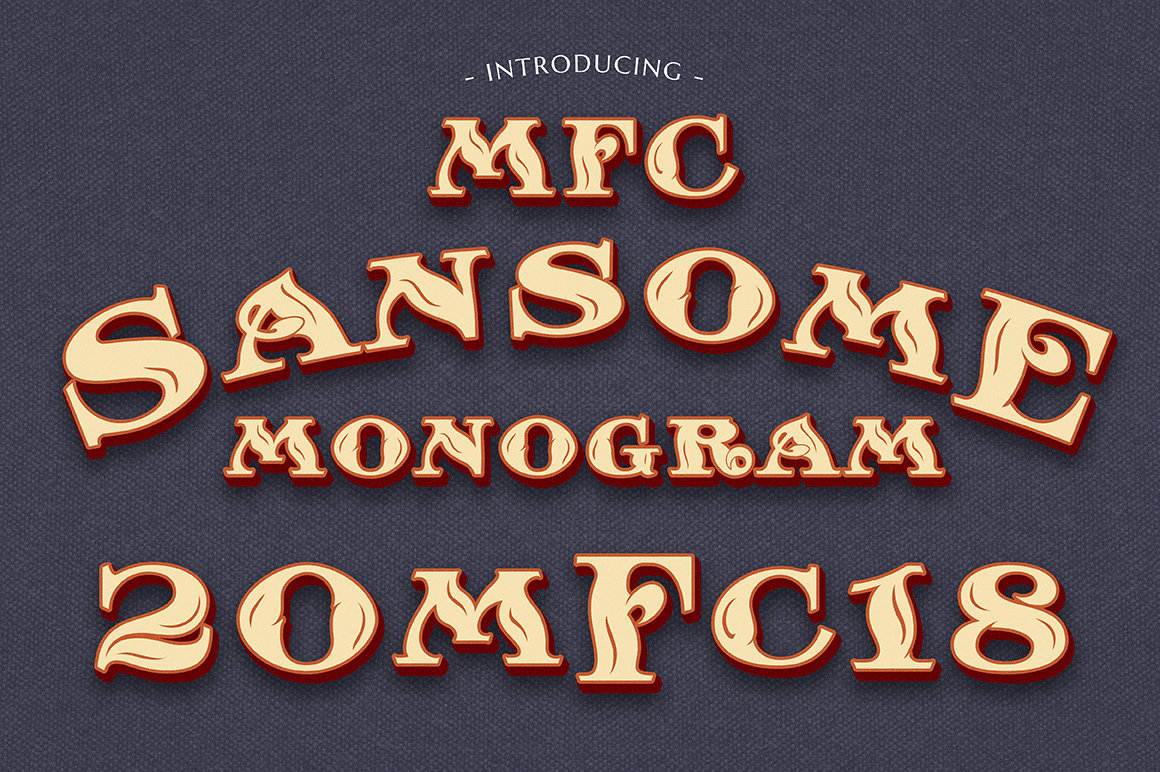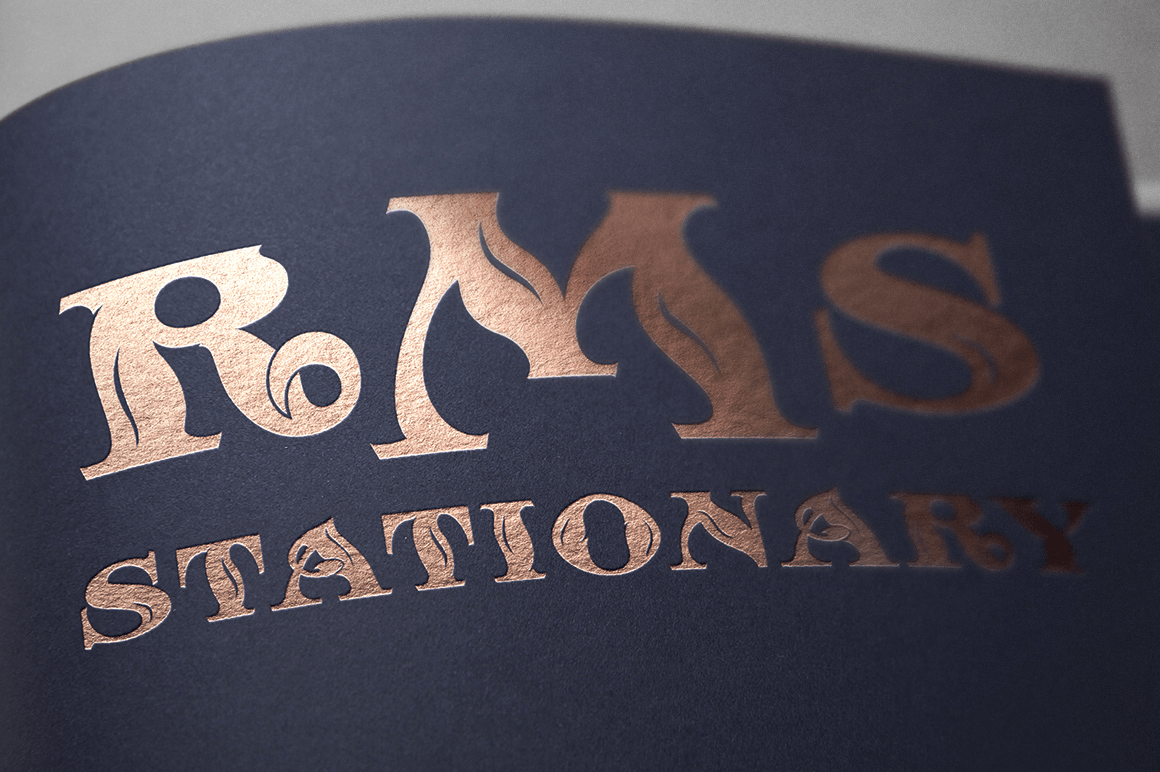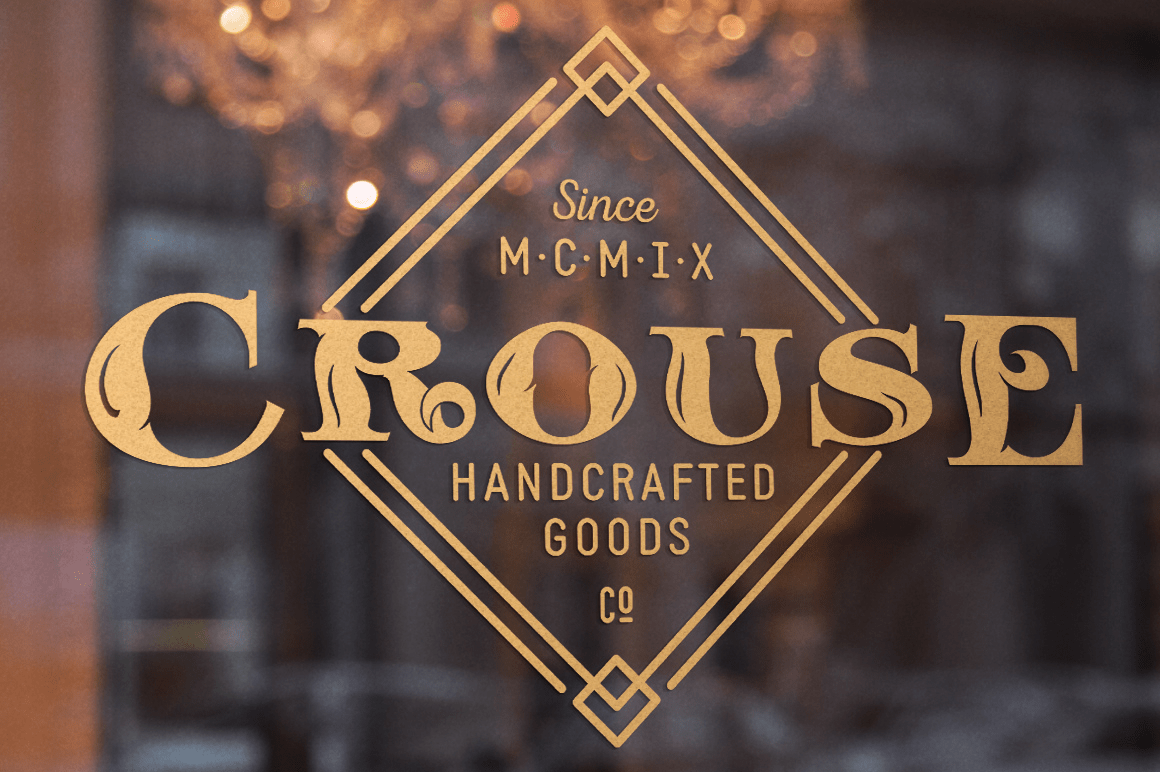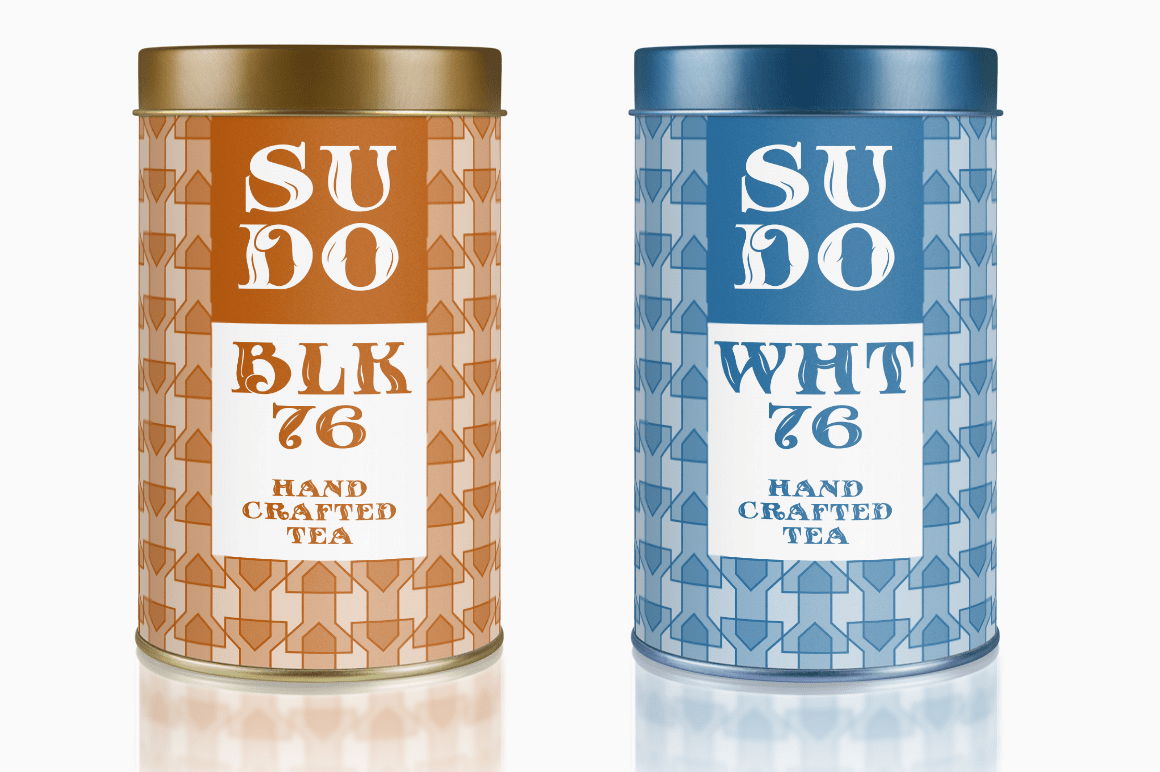
MFC Sansome Mngm
Font Family by Monogram Fonts Co
The inspiration source for MFC Sansome Monogram is a decorative serif lettering style that comes from the book Henderson's Sign Painter from 1906. Known as "Rustic Roman" and originally designed by John F. Irwin, this fantastic typeface has been digitally revived and expanded for monogram designs. While the original lettering did not include numerals and was never originally intended for monograms, its ornate nature lends itself so wonderfully to the craft. A PDF guidebook for MFC Sansome Monogram is included in the font package.